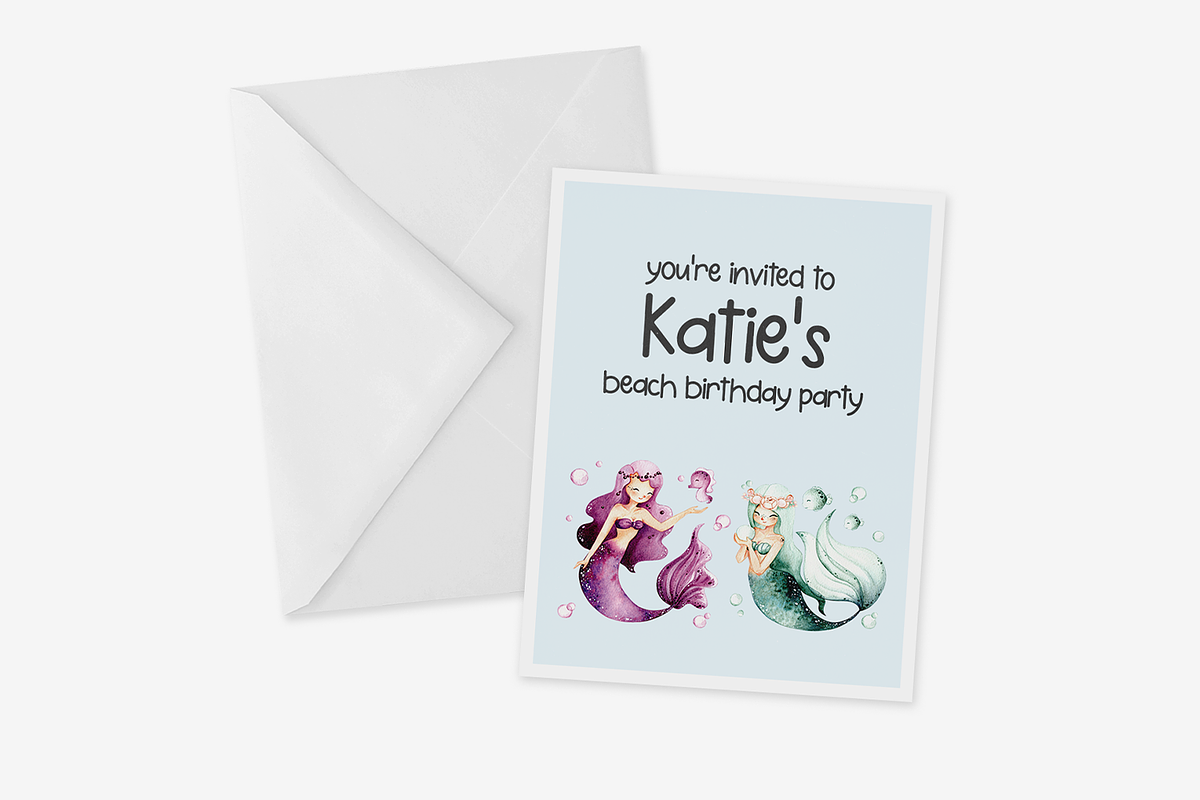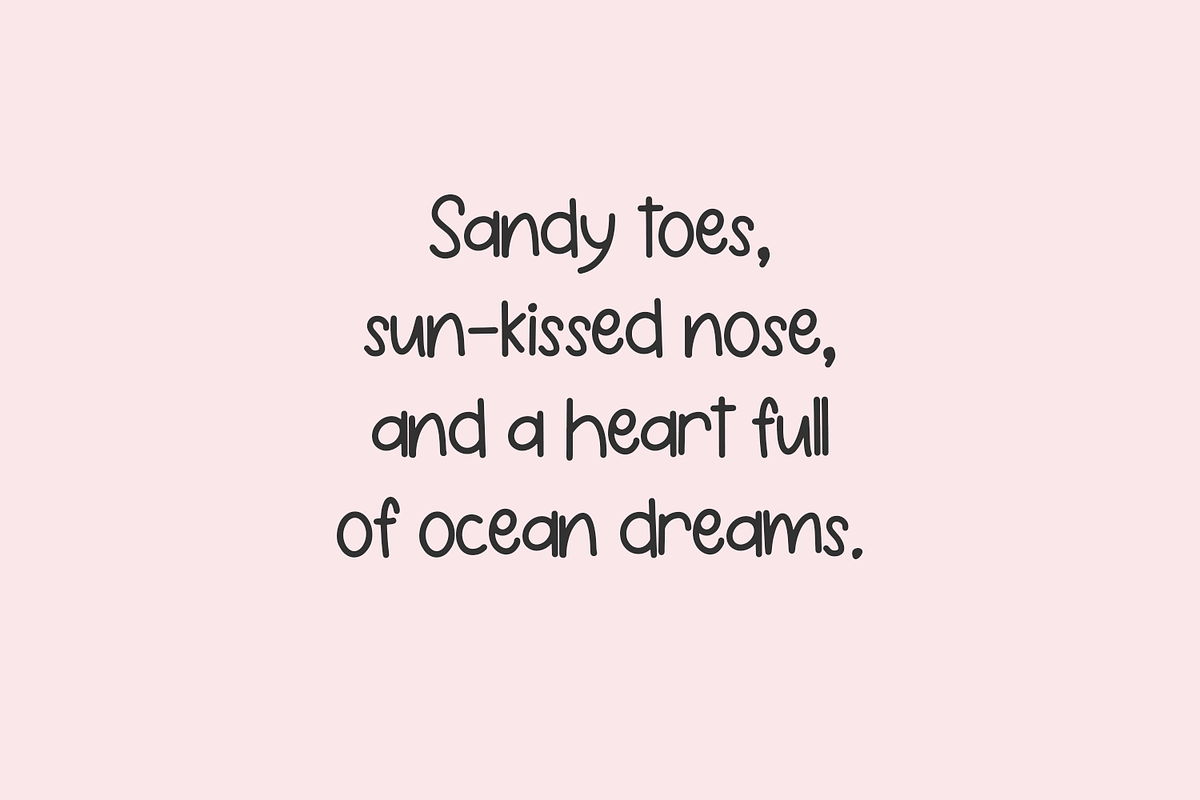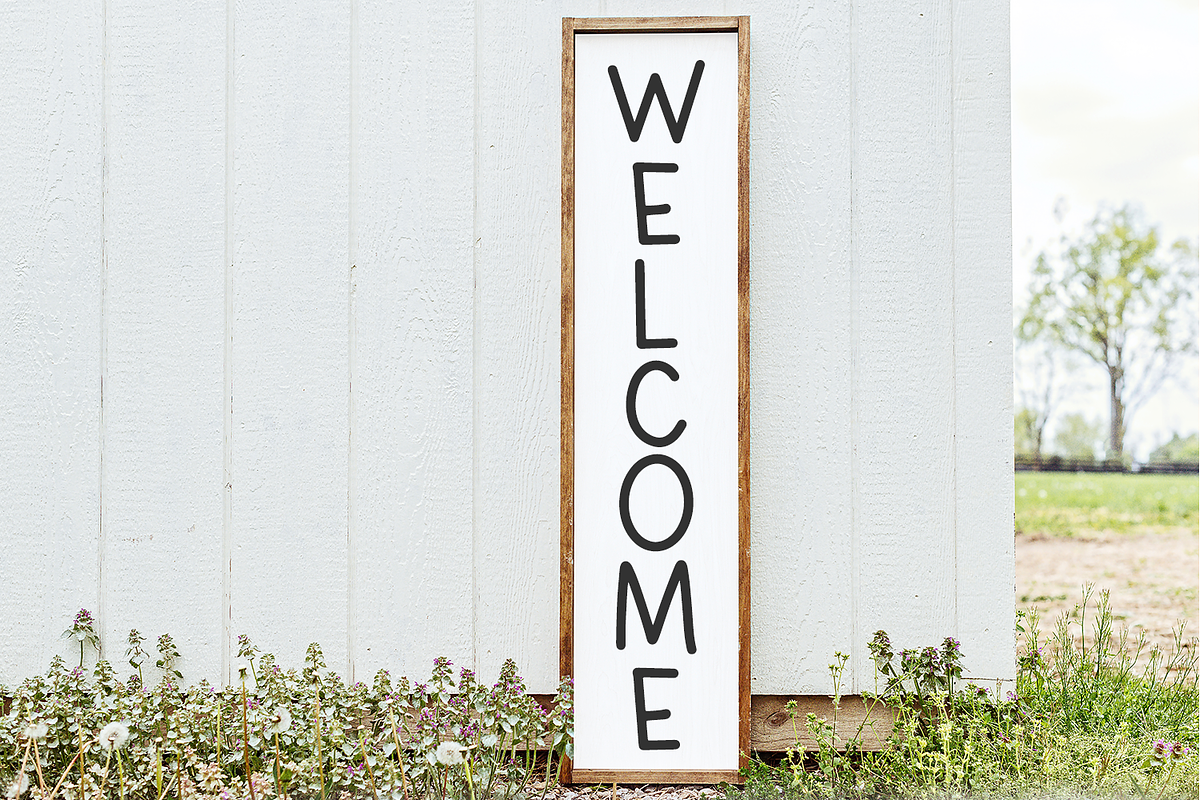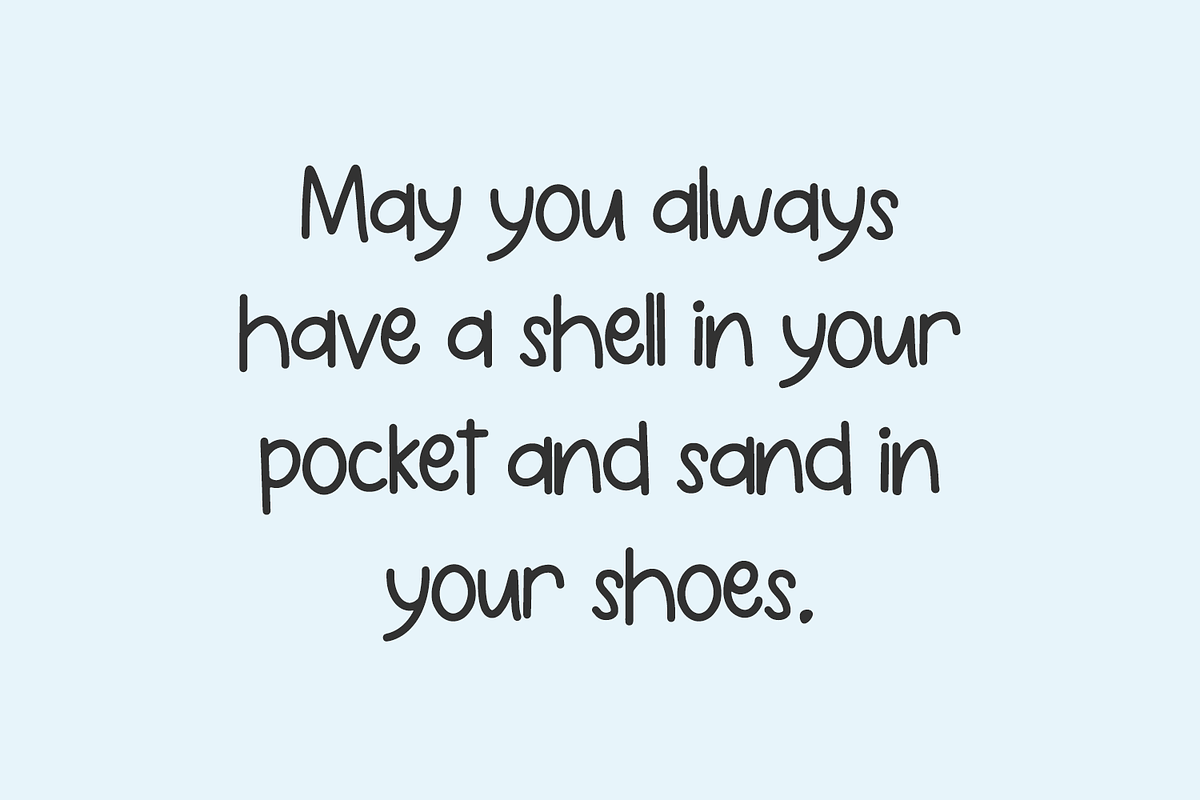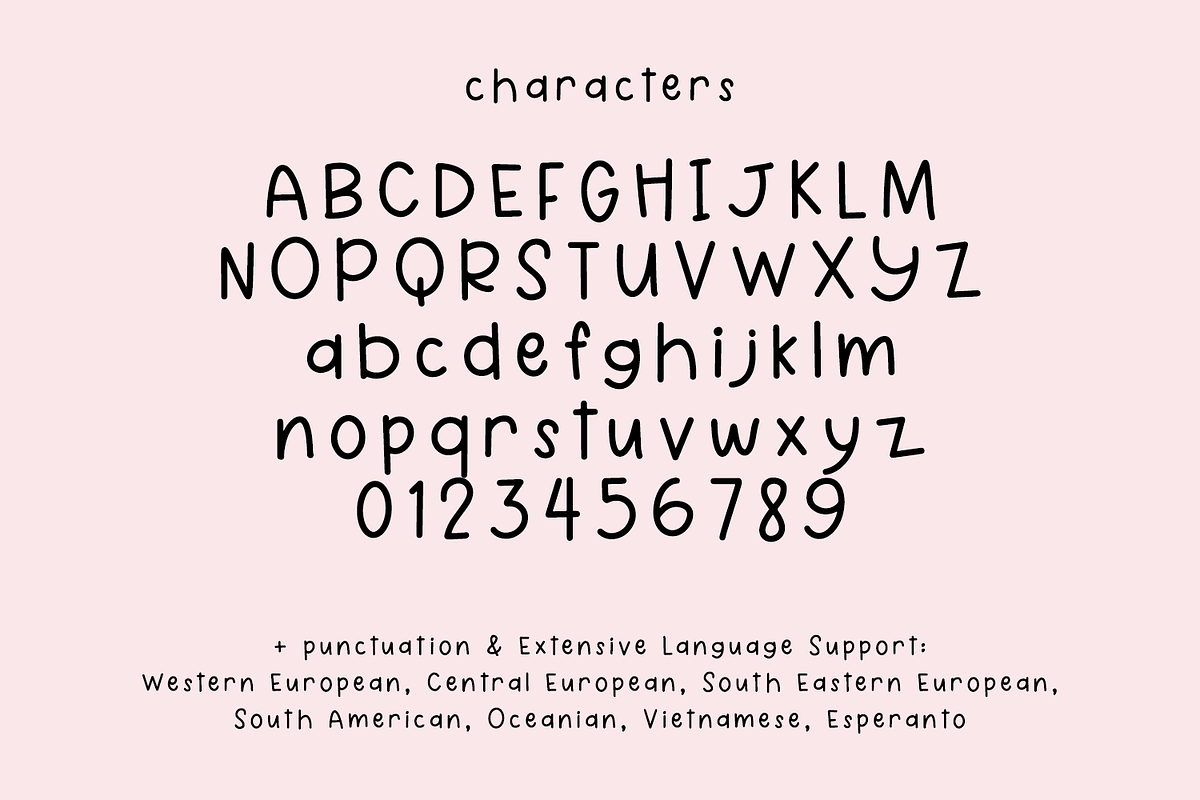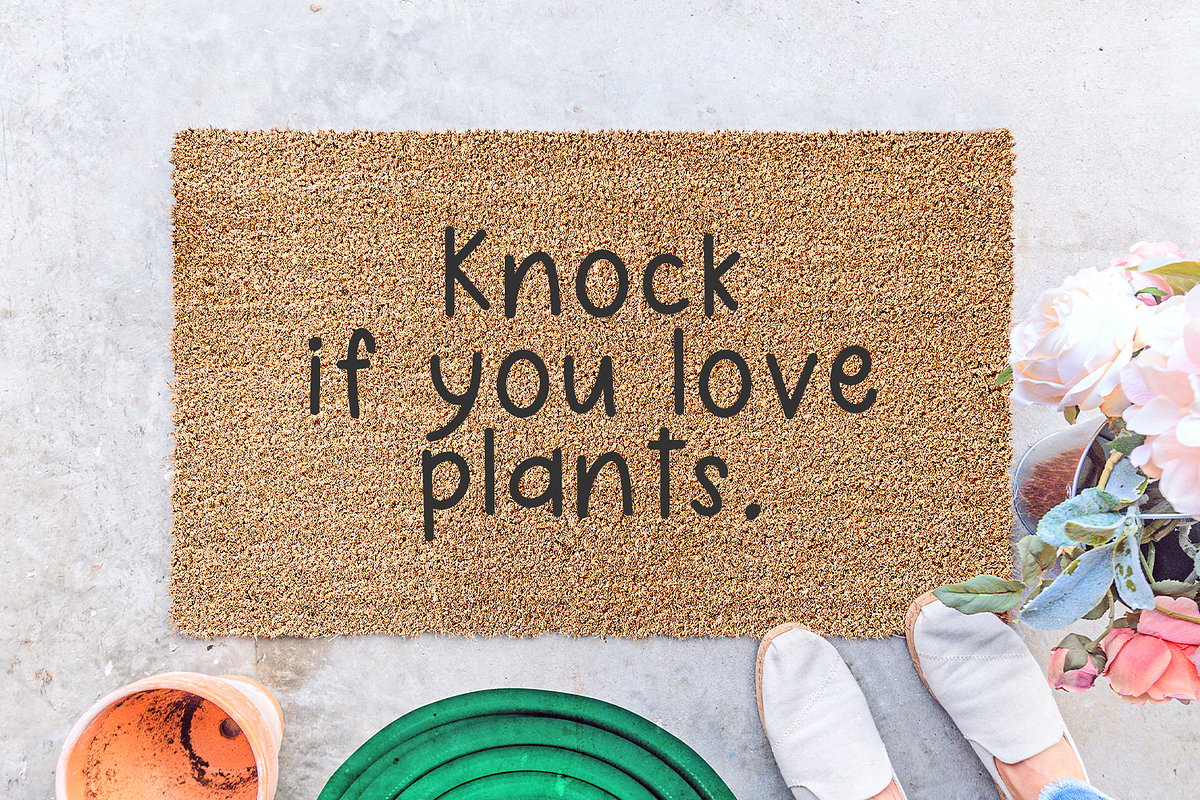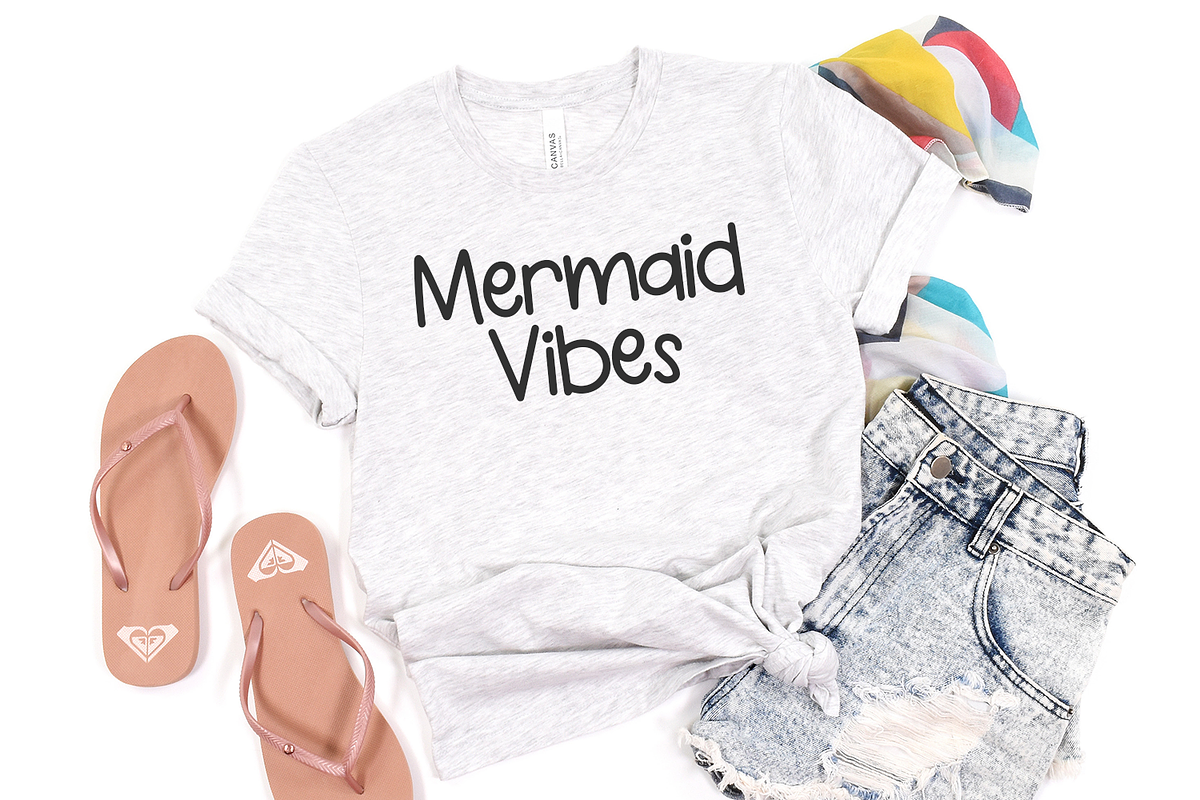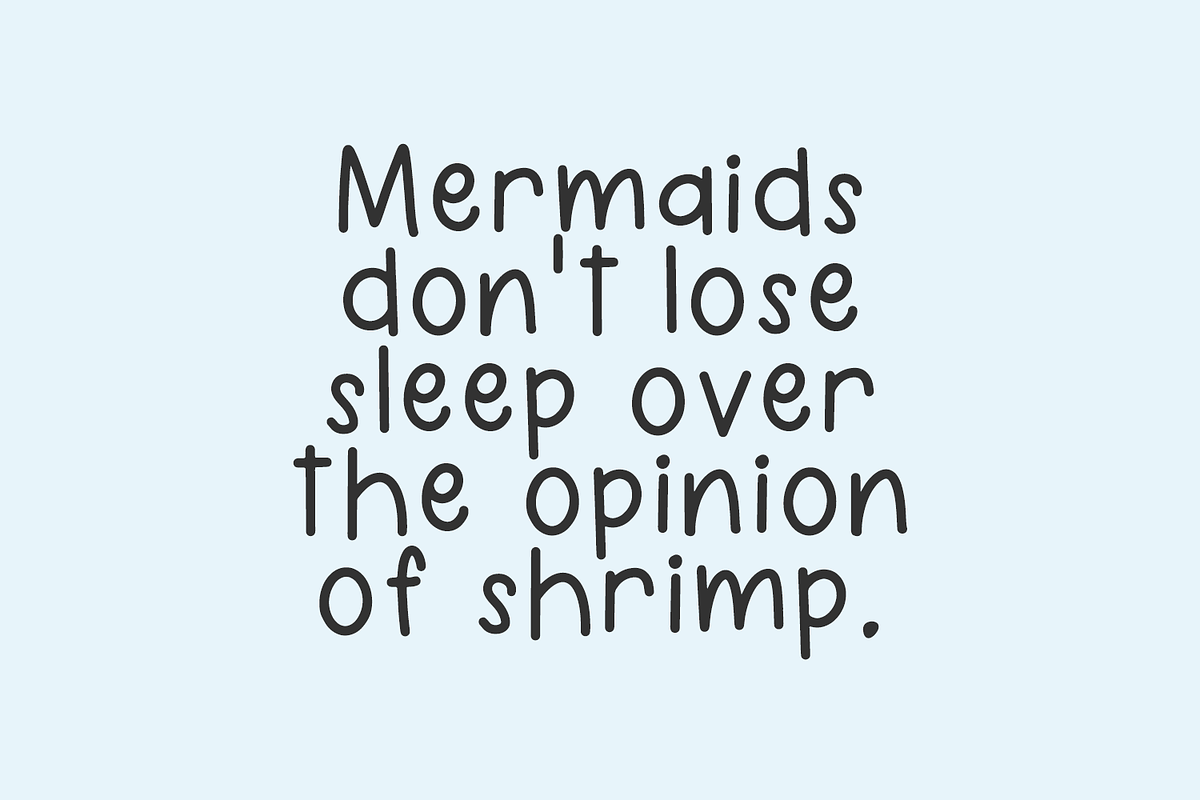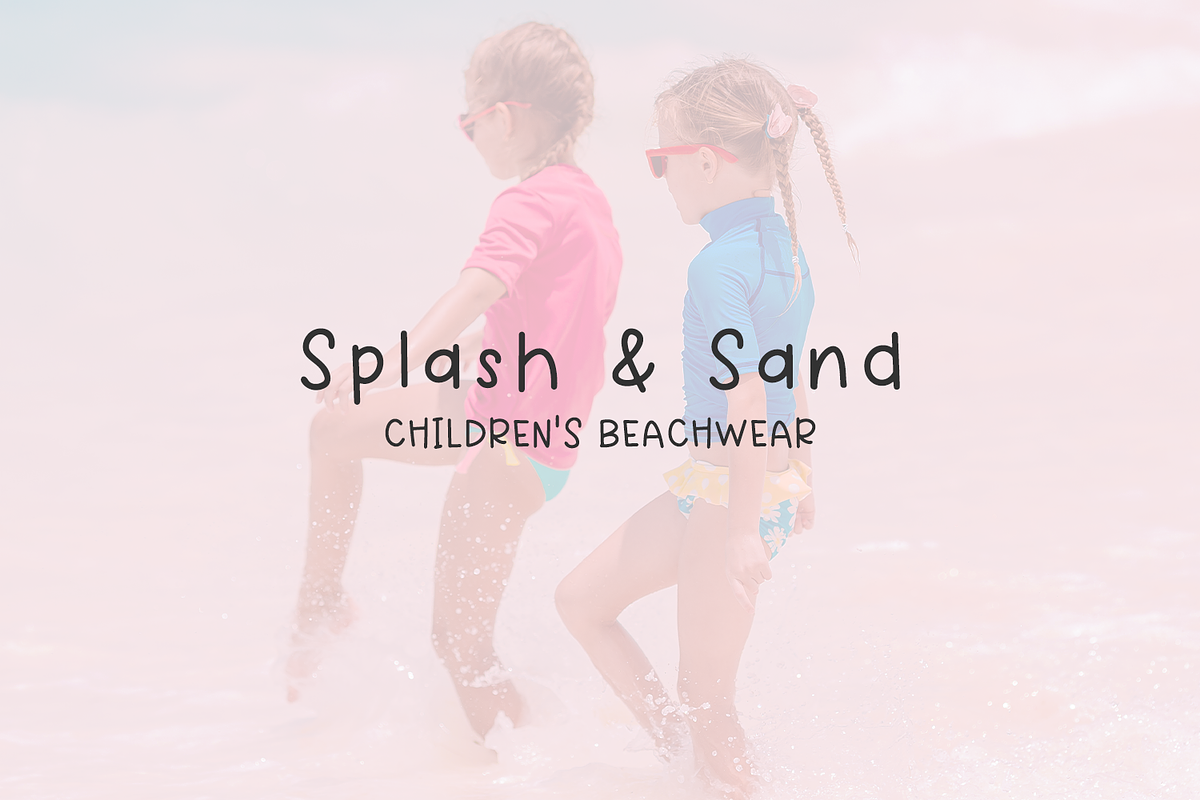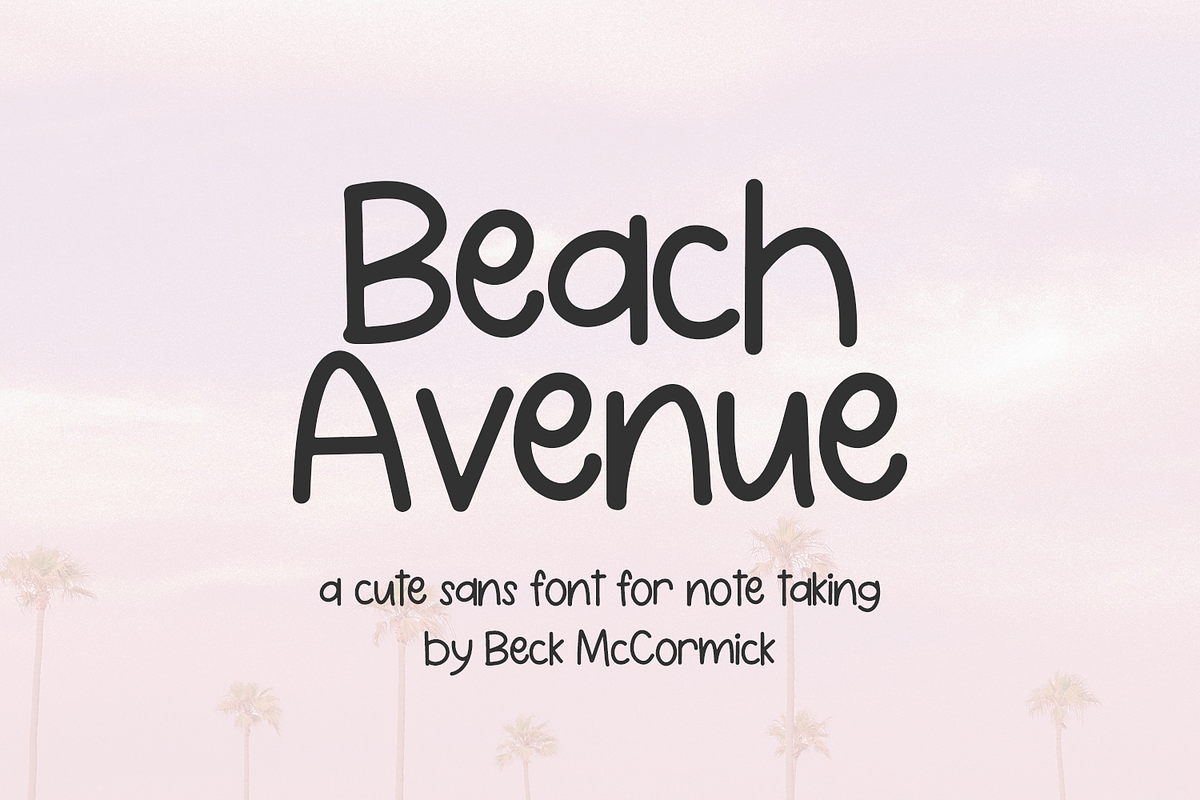
Beach Avenue Sans
Say hello to Beach Avenue Sans. Beach Avenue is a cute handwriting font perfect note taking, digital planning, teachers & classrooms, and more.
Beach Avenue includes:
- full upper + lowercase characters
- numbers + punctuation
- Language support - English, French, Spanish, Portuguese (Brazil), Portuguese (Portugal), Italian, German (Germany), German (Austria), Dutch, Danish, Swedish, Norwegian (Bokmรฅl and Nynorsk), Finnish, Icelandic, Irish, Welsh, Central European, South Eastern European, South American, Oceanian, Vietnamese, and Esperanto